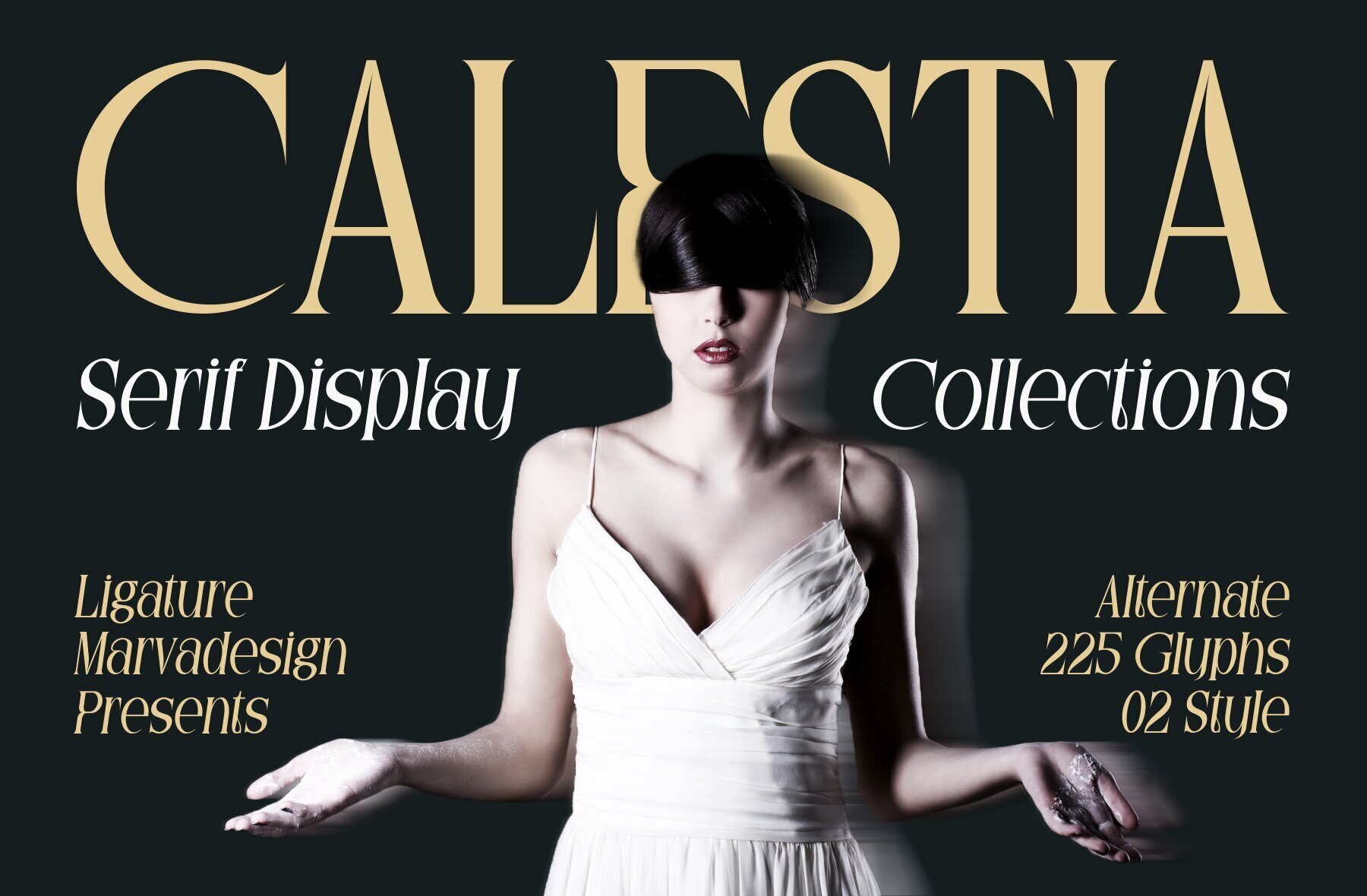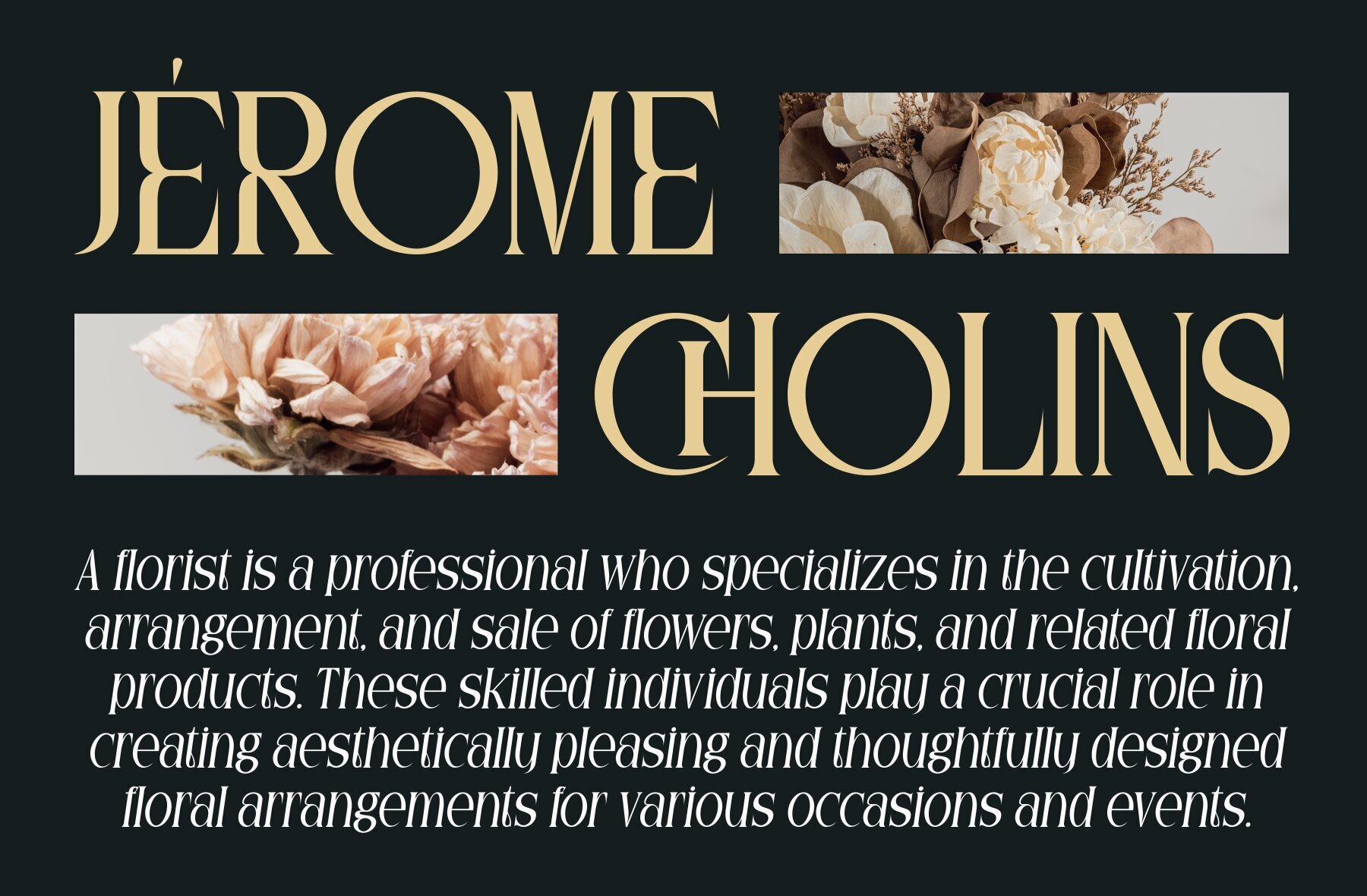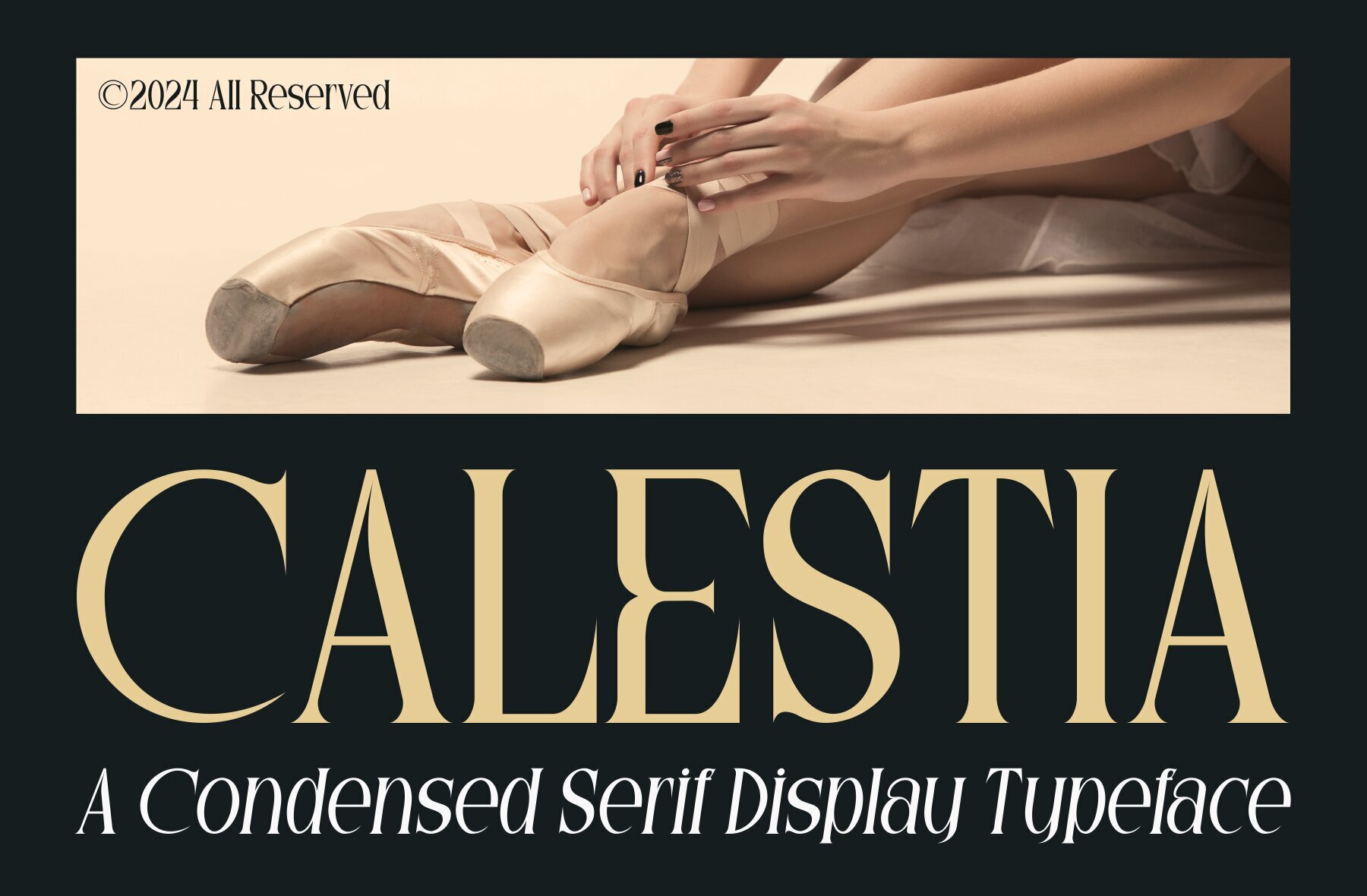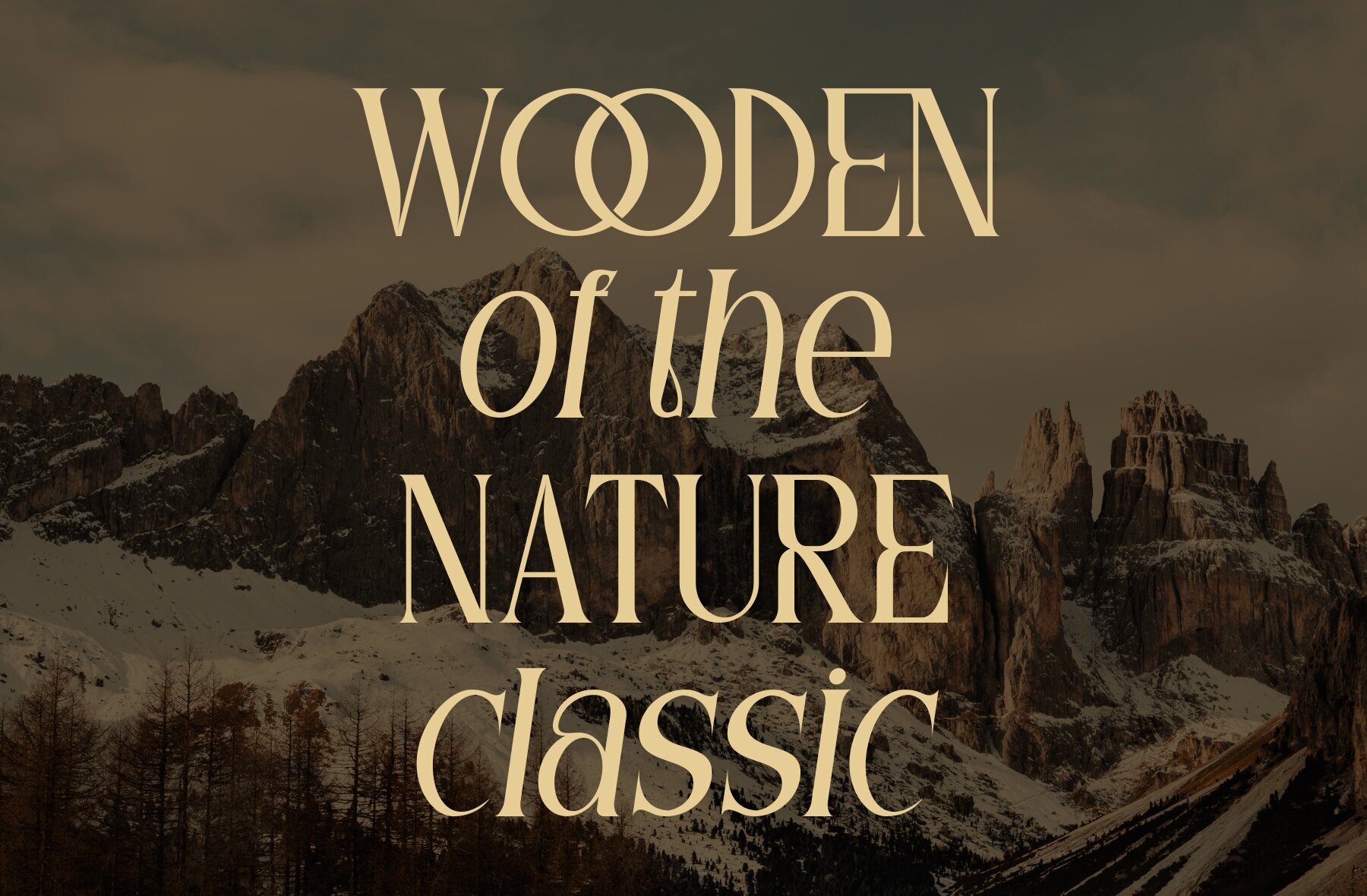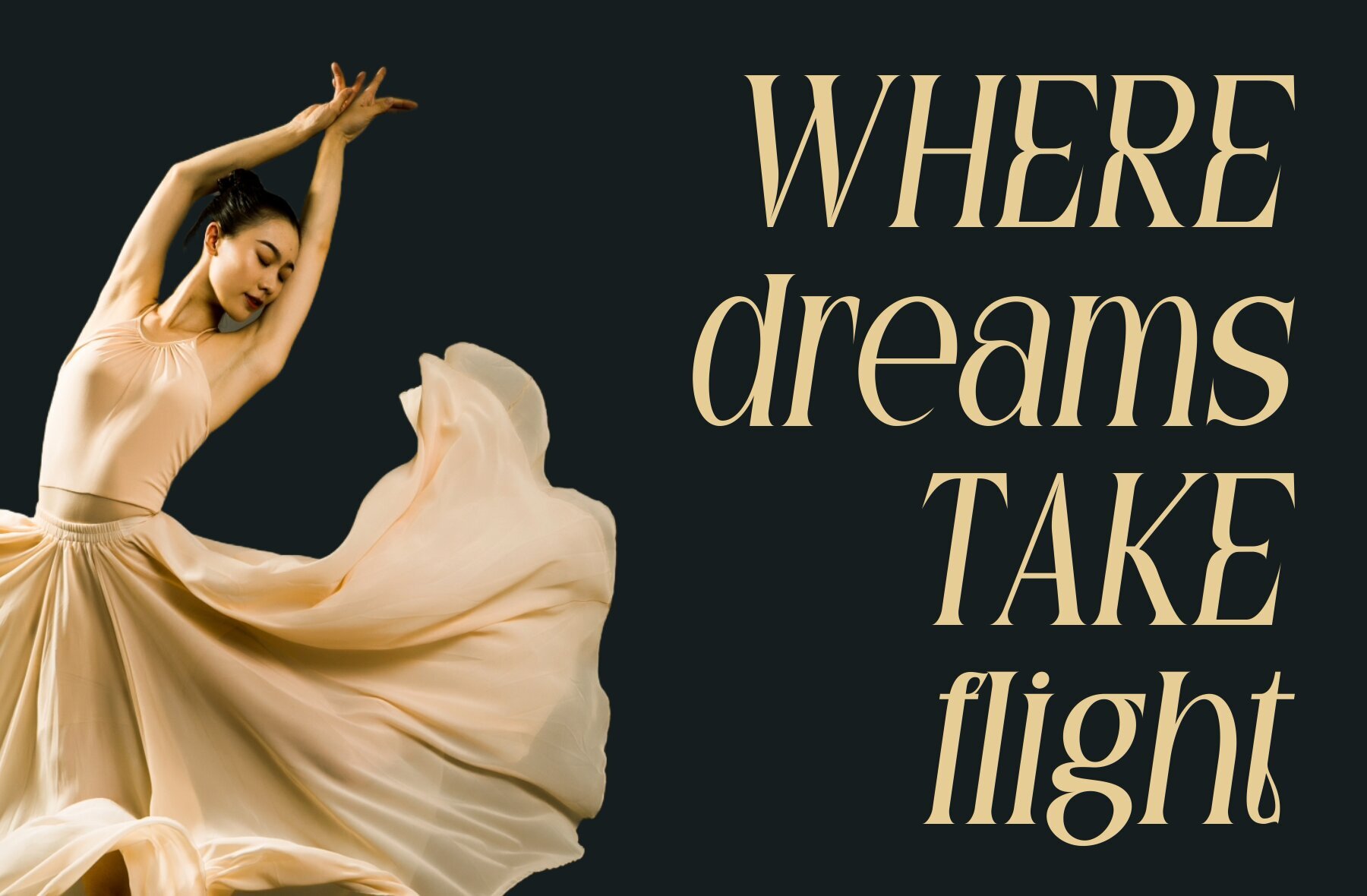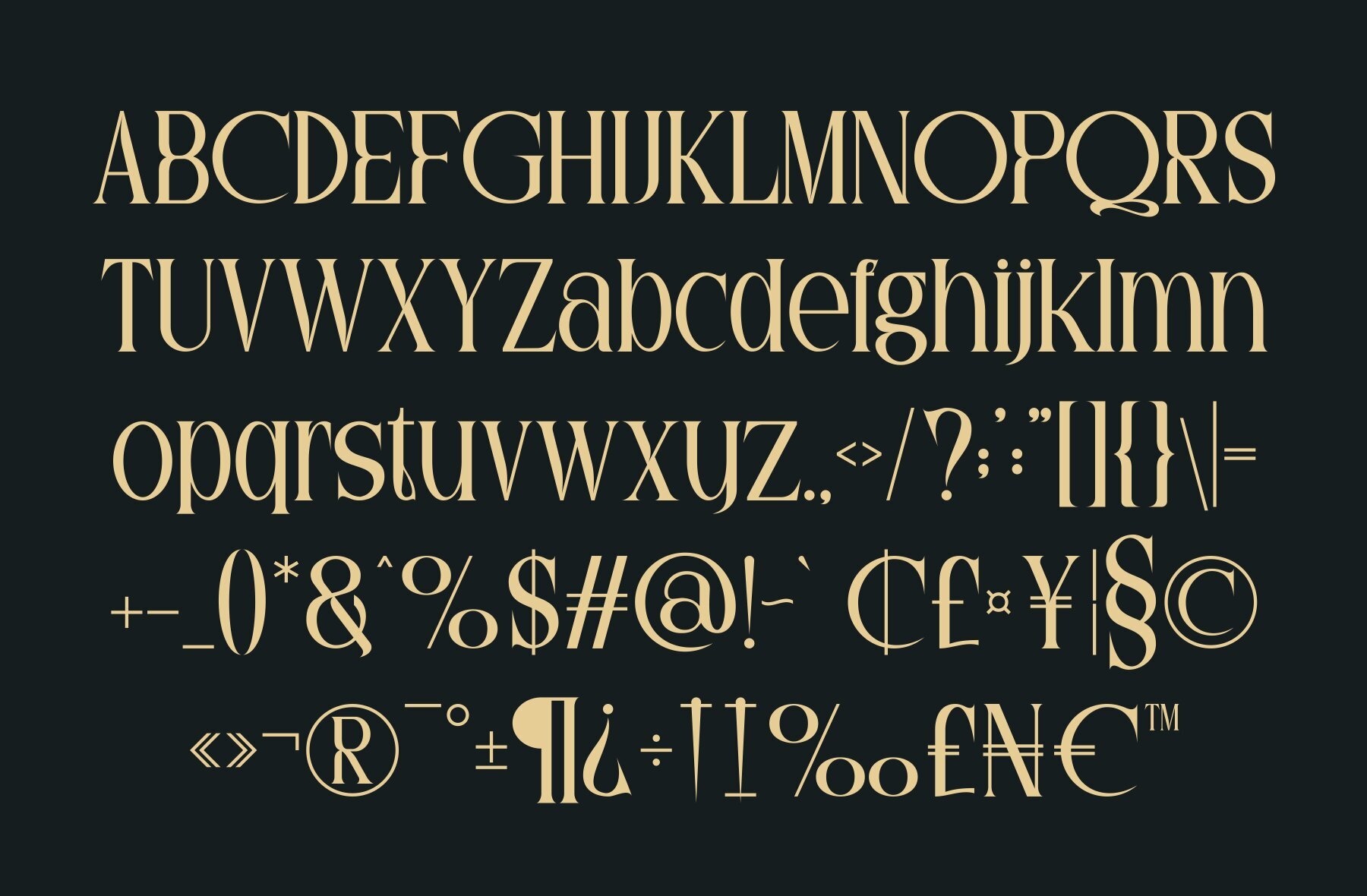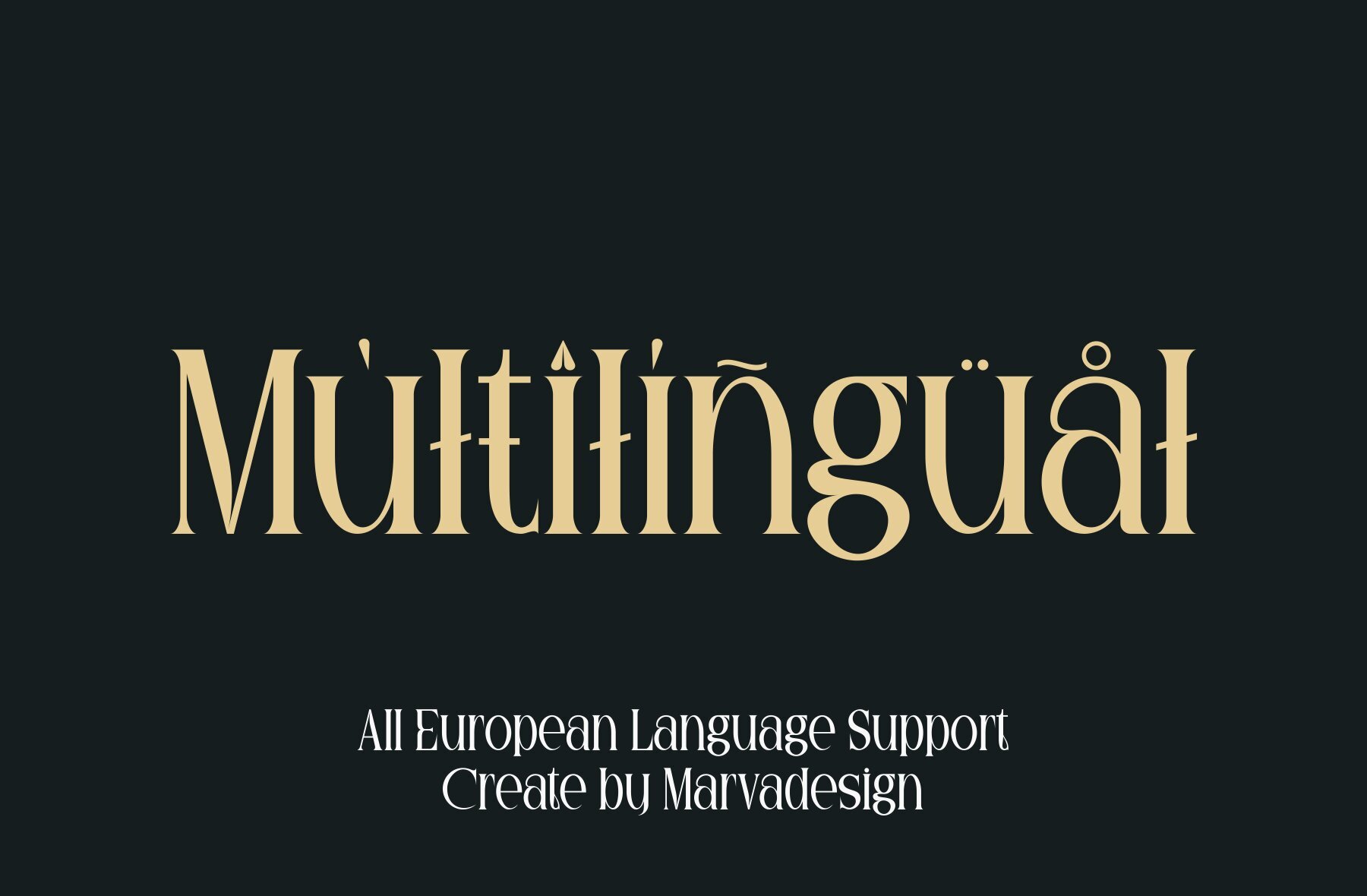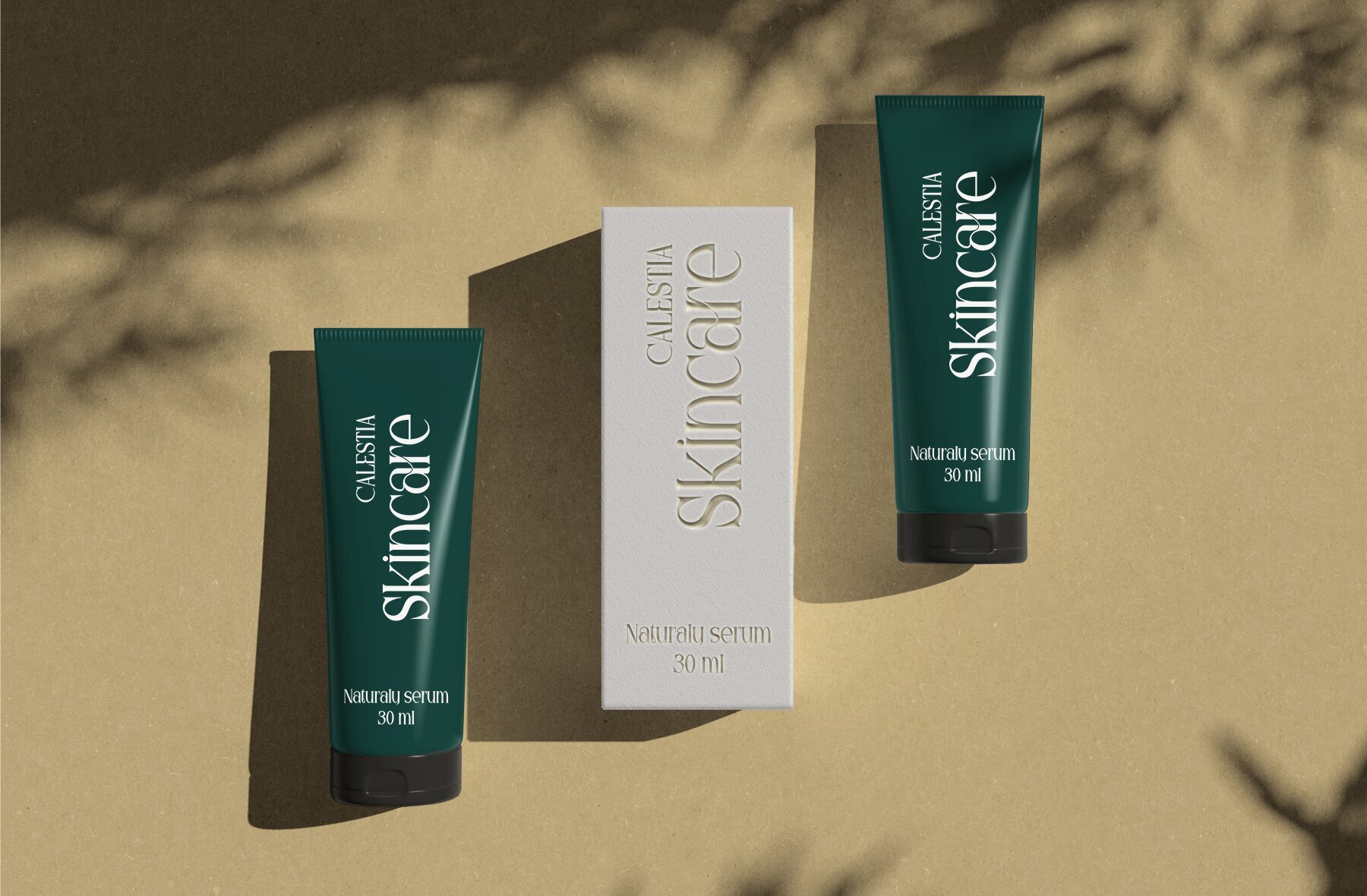
Calestia Font
Calestia is an authentic display condensed serif font designed to enhance any branding project. Its unique style makes it ideal for logos, template designs, products, and more, standing out in a variety of contexts.Calestia: Elegant Display Condensed Serif Font